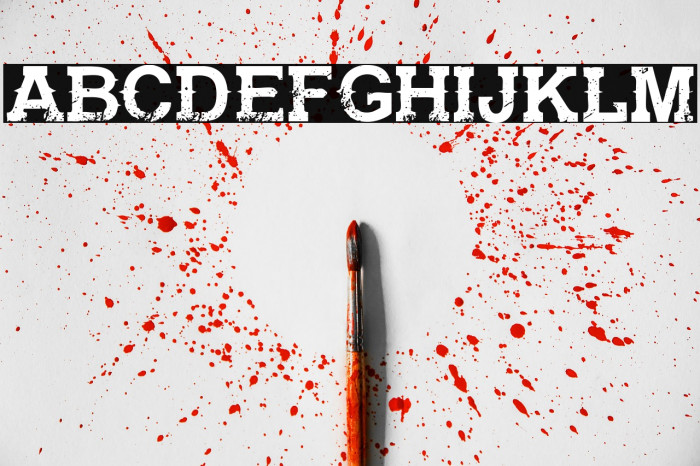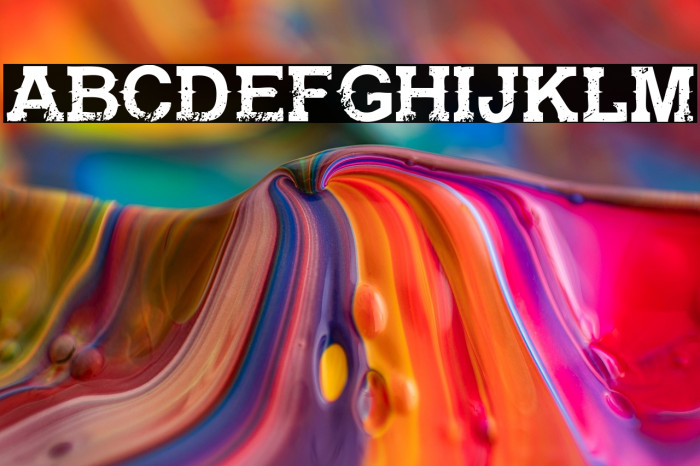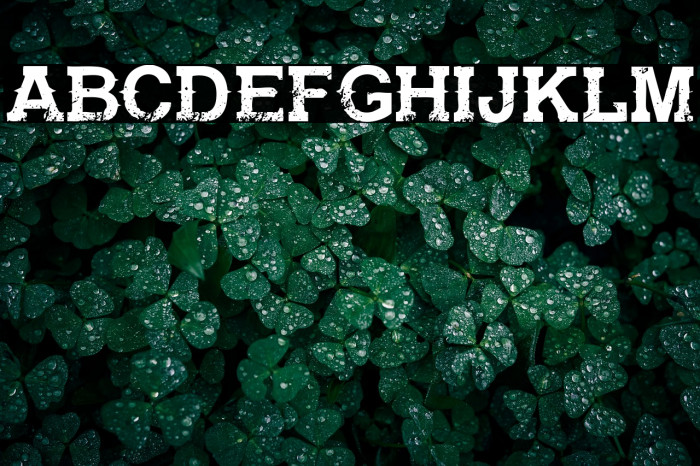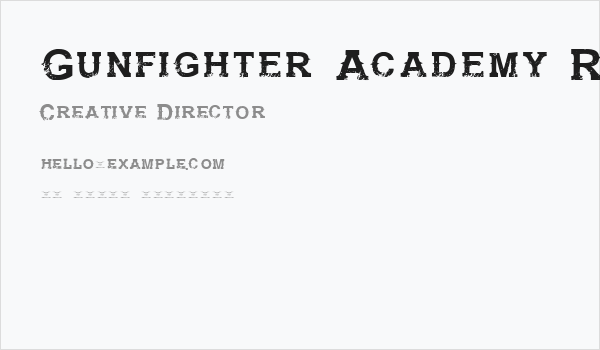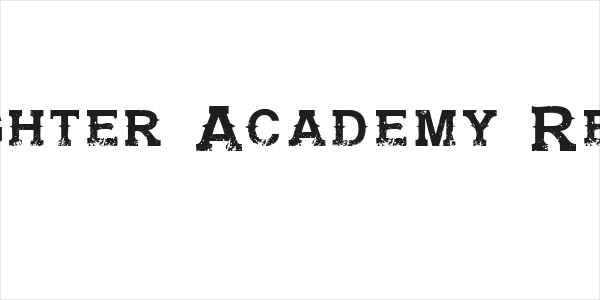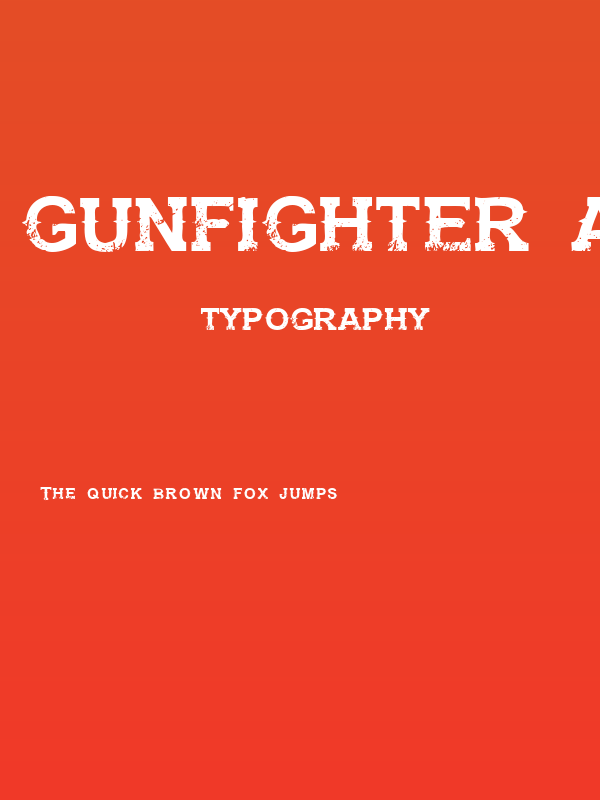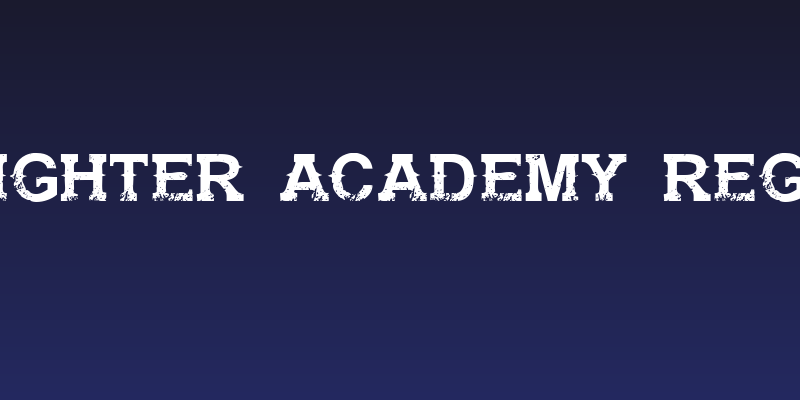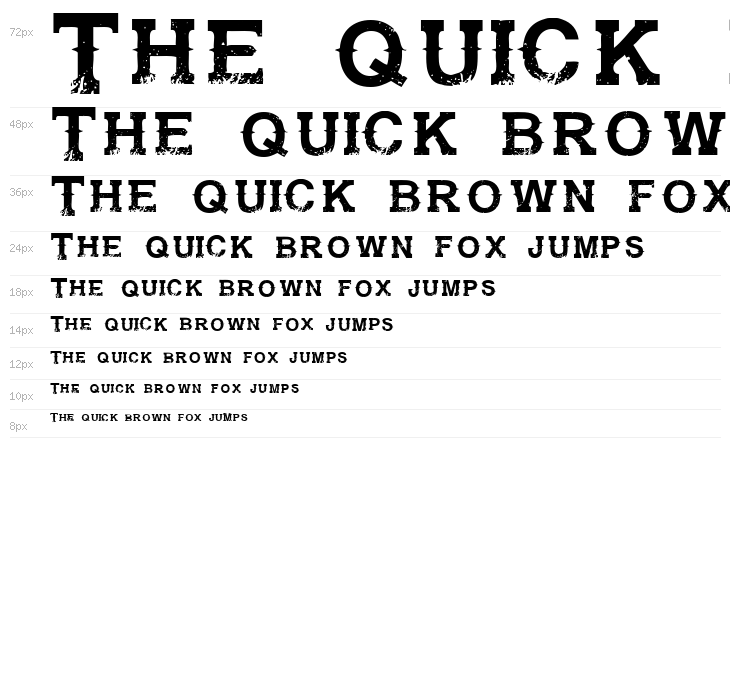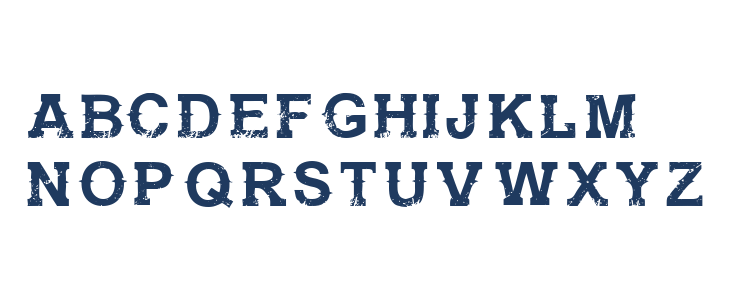
Gunfighter Academy Regular Font
Gunfighter Academy Regular Description
This font features a bold and rugged style, characterized by its distressed and textured appearance. The letters have a strong presence with rough edges, giving them a vintage and worn look. The uppercase letters are prominent, with a consistent height and width, while the lowercase letters maintain the same rugged texture. The numbers and special characters follow the same design, ensuring uniformity across the font. This style evokes a sense of the Wild West or an old-school, gritty aesthetic, making it ideal for projects that require a bold and impactful visual statement.
| Proposed Projects | Ideal for posters, branding, logos, and any design needing a vintage or Western theme. |